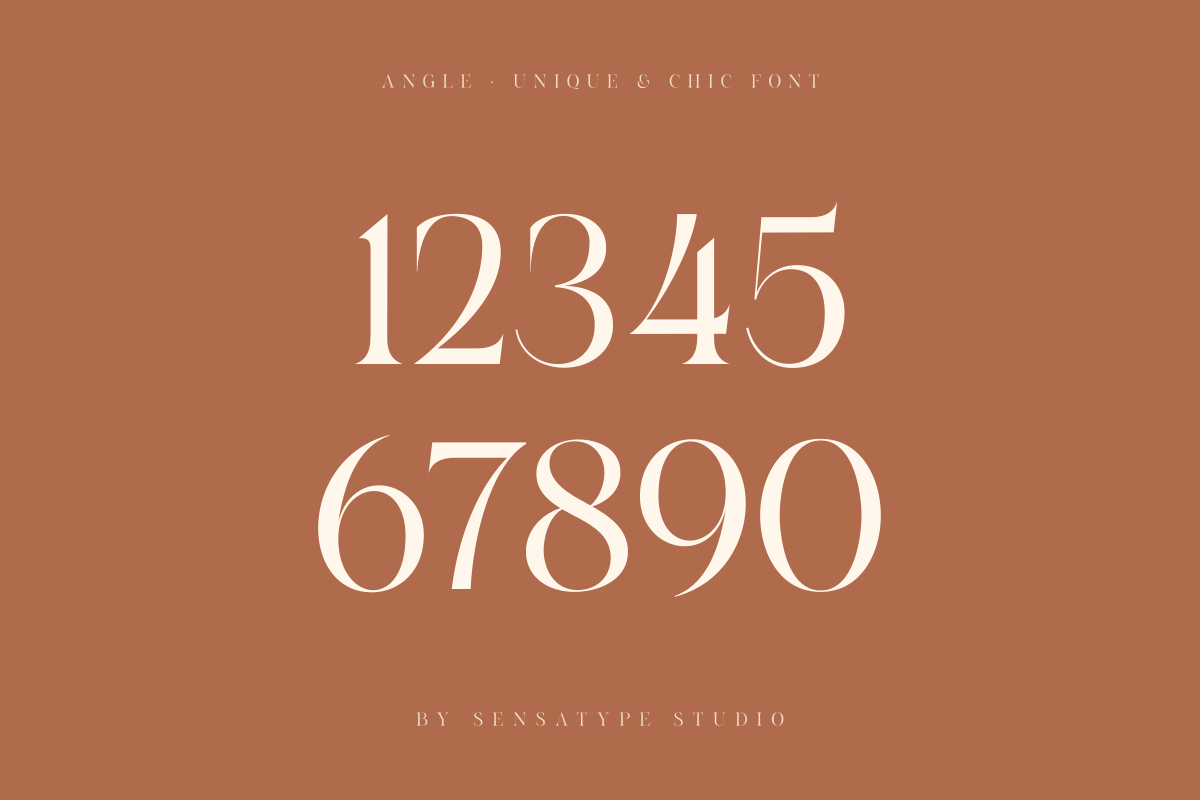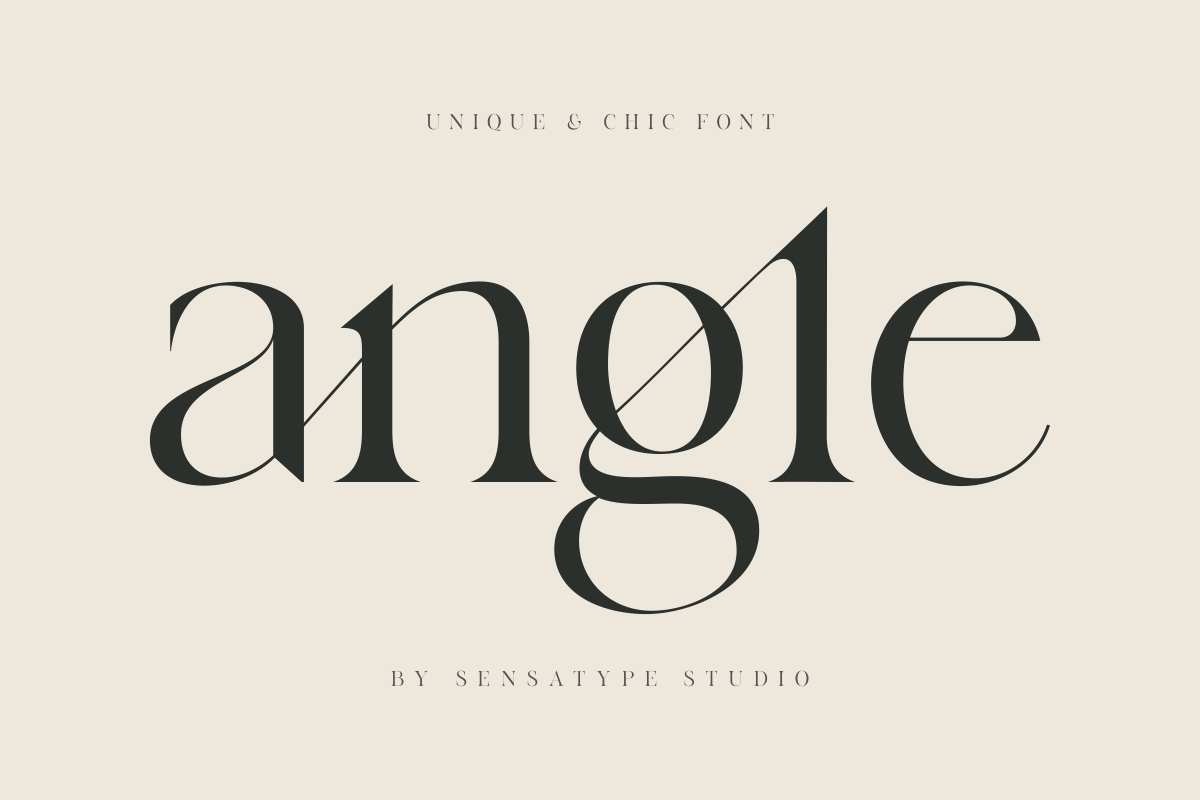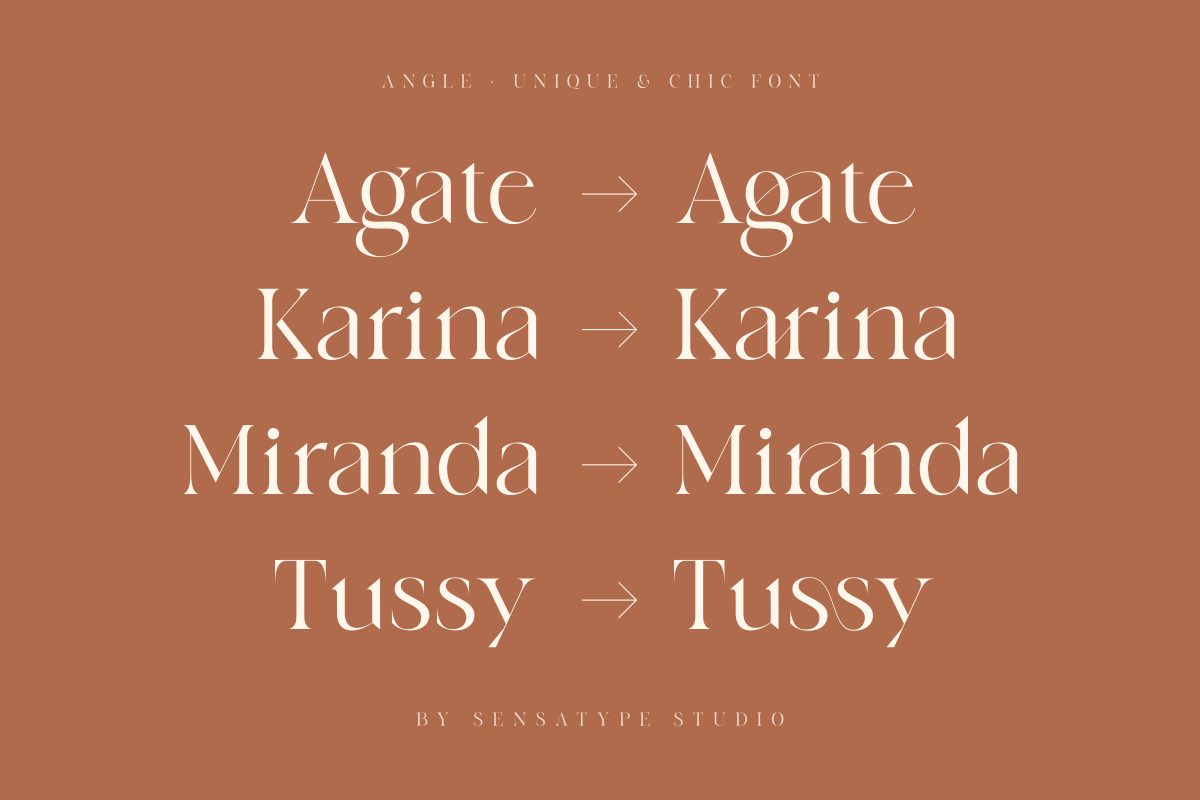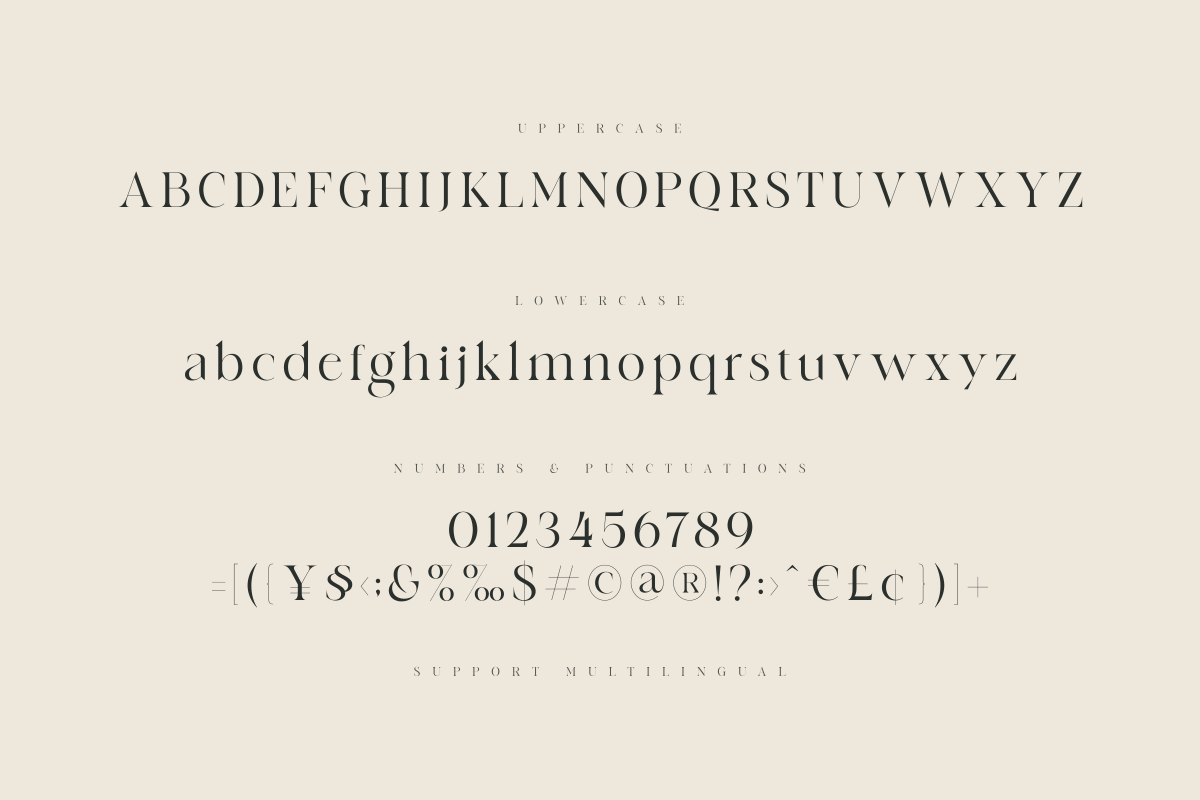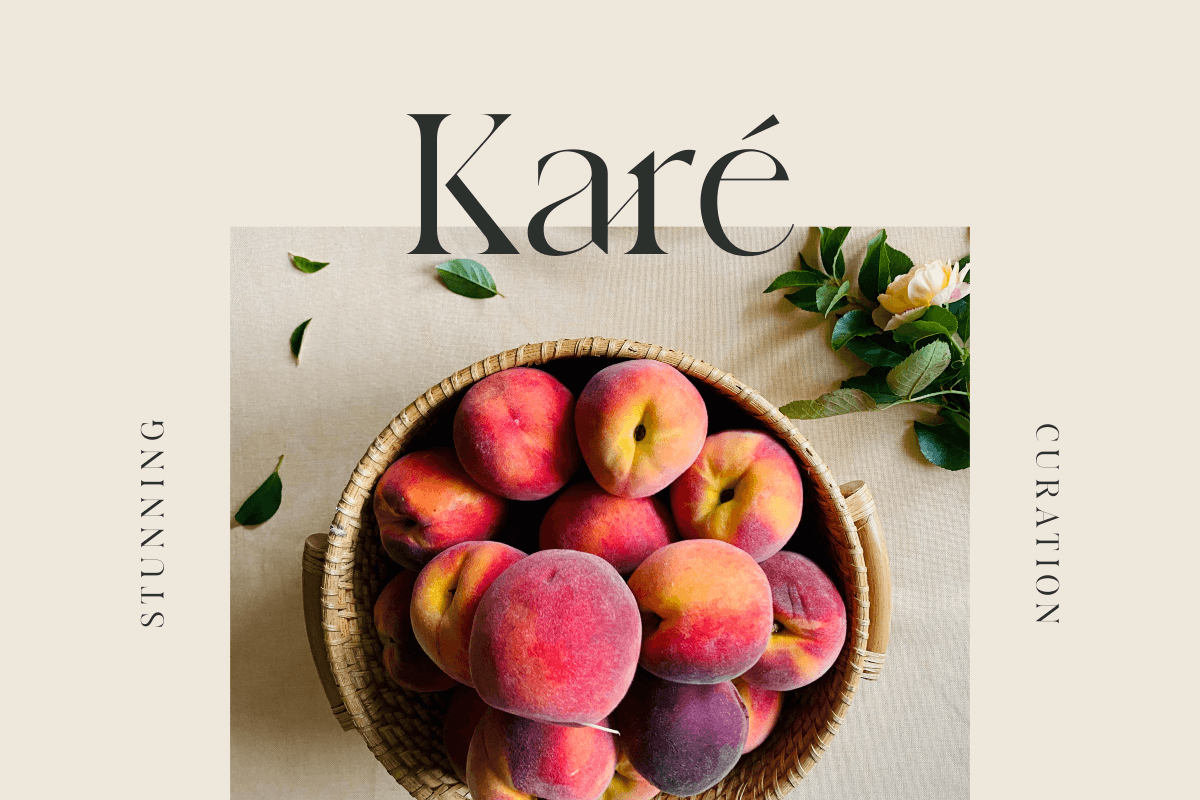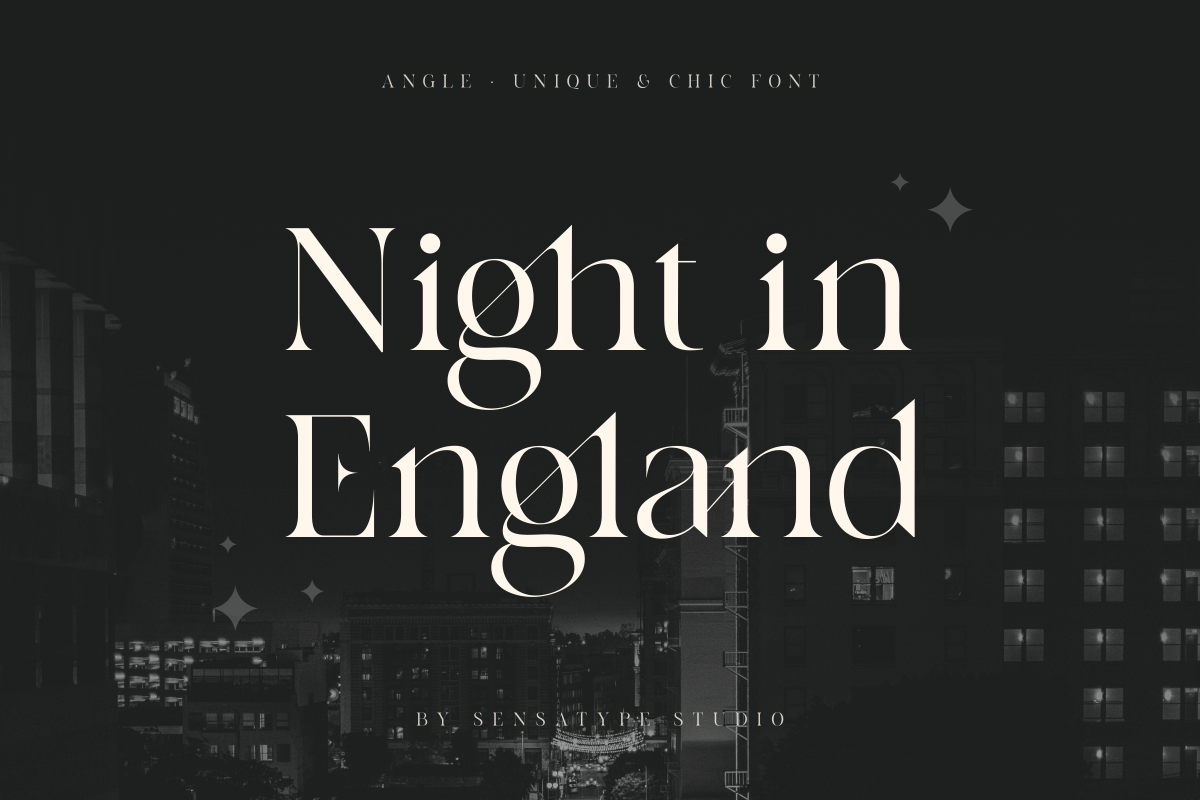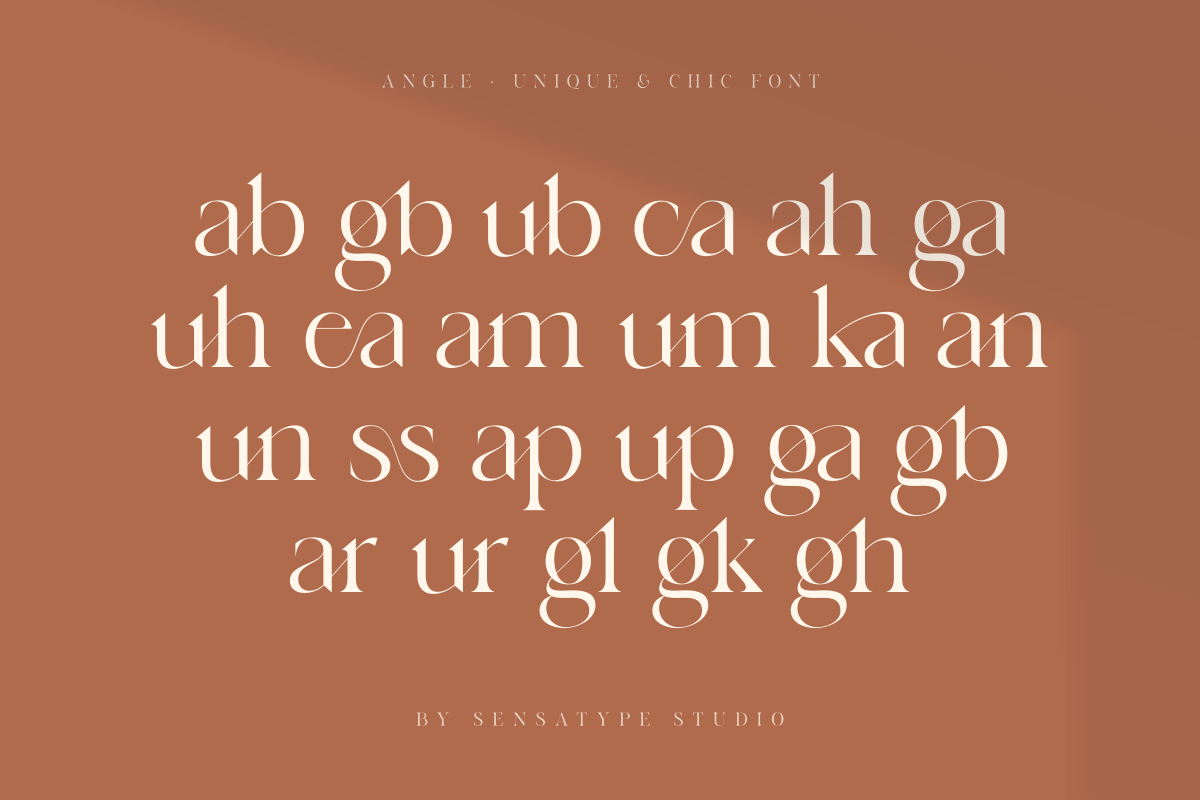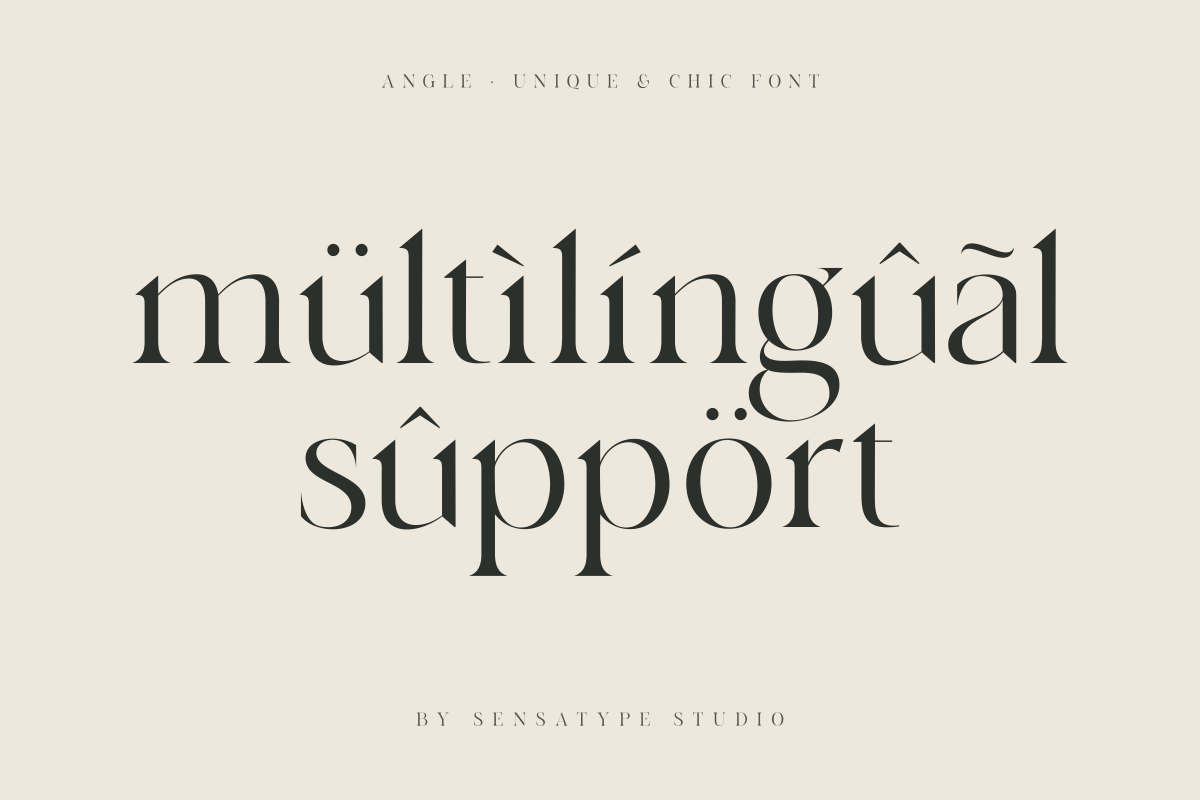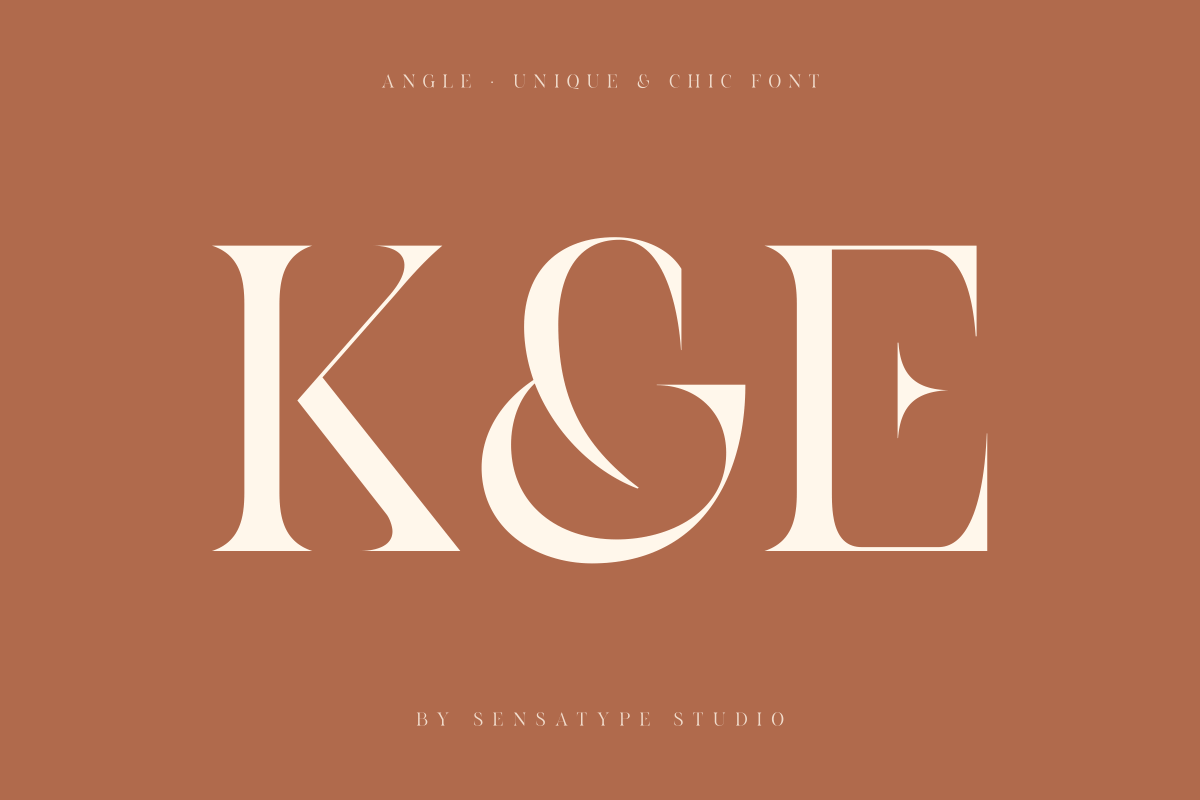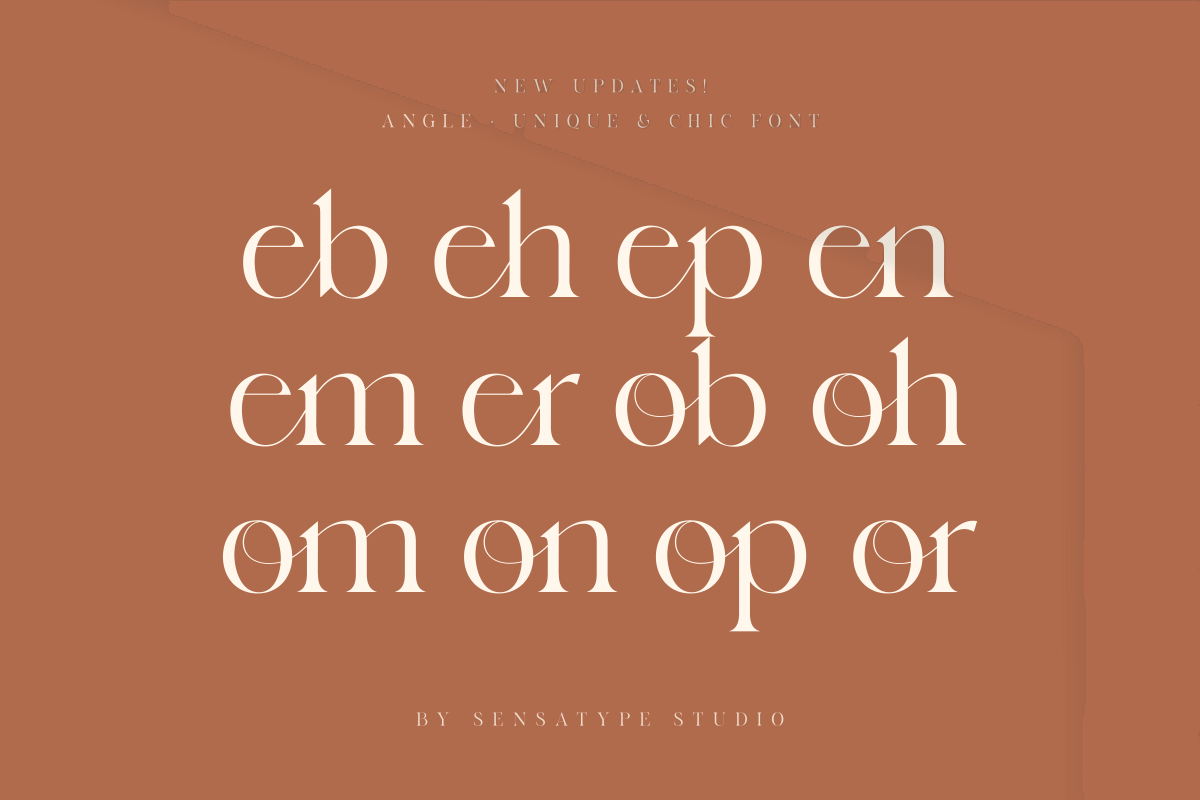
Angle - Unique & Chic Font
Angle is a unique and chic font crafted to give your projects a modern, stylish, and professional touch. Its distinct letterforms make it ideal for branding, logos, headlines, invitations, and editorial designs.
With a balance of creativity and readability, Angle enhances any design with a refined and visually appealing aesthetic. Perfect for both digital and print applications, this font brings a fresh and contemporary flair to every project.
Angle – Unique & Chic Font Features
• Distinctive and stylish character set
• Elegant, modern, and professional design
• Includes uppercase, lowercase, numerals, and punctuation
• Perfect for digital and print projects
• OpenType features for versatile typography
• Multilingual support